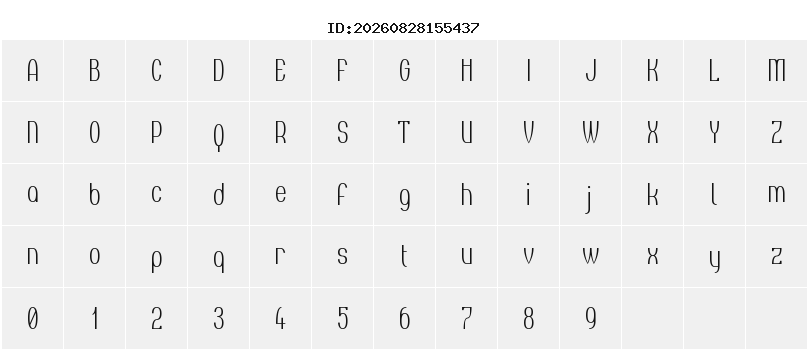
Tincushion Light Preview
• Font Name: Tincushion Light
• Full Font Name: Tincushion Light
• Designer: Vít Čondák
• Manufacturer: Eriador
About Tincushion Light.otf
Tincushion Light.otf is a modern, elegant sans-serif font designed for ultimate readability and visual harmony. Perfect for branding, headlines, web design, and print materials.